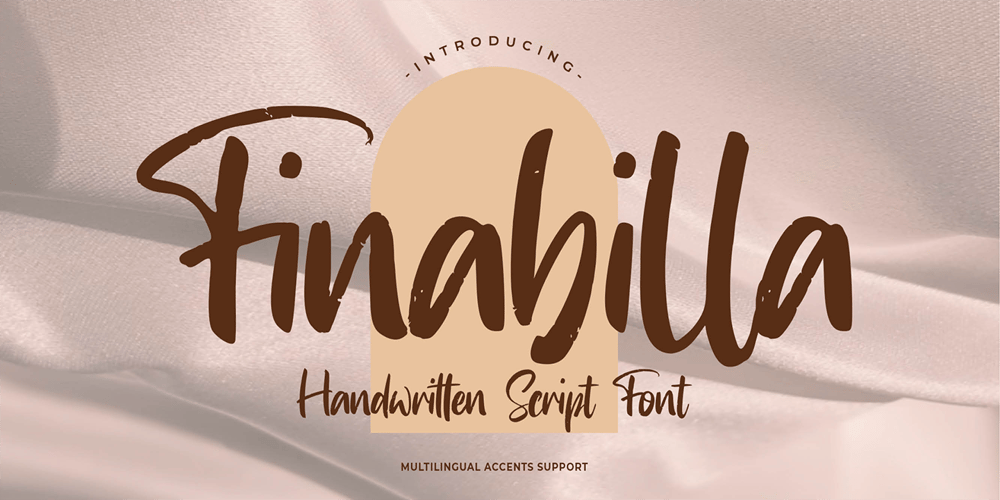
Finabilla Font Family was designed by Abdul Malik Wisnu, Anang Fibriyanto and published by Gassstype. Finabilla contains 1 styles and family package options. Hello Everyone, introduce our new product Finabilla It Is Handwritten Script Font with a natural feel. This handmade font will make your design has a beautiful natural touch for each details. You can activate 15 Ligature glyphs OpenType panel.